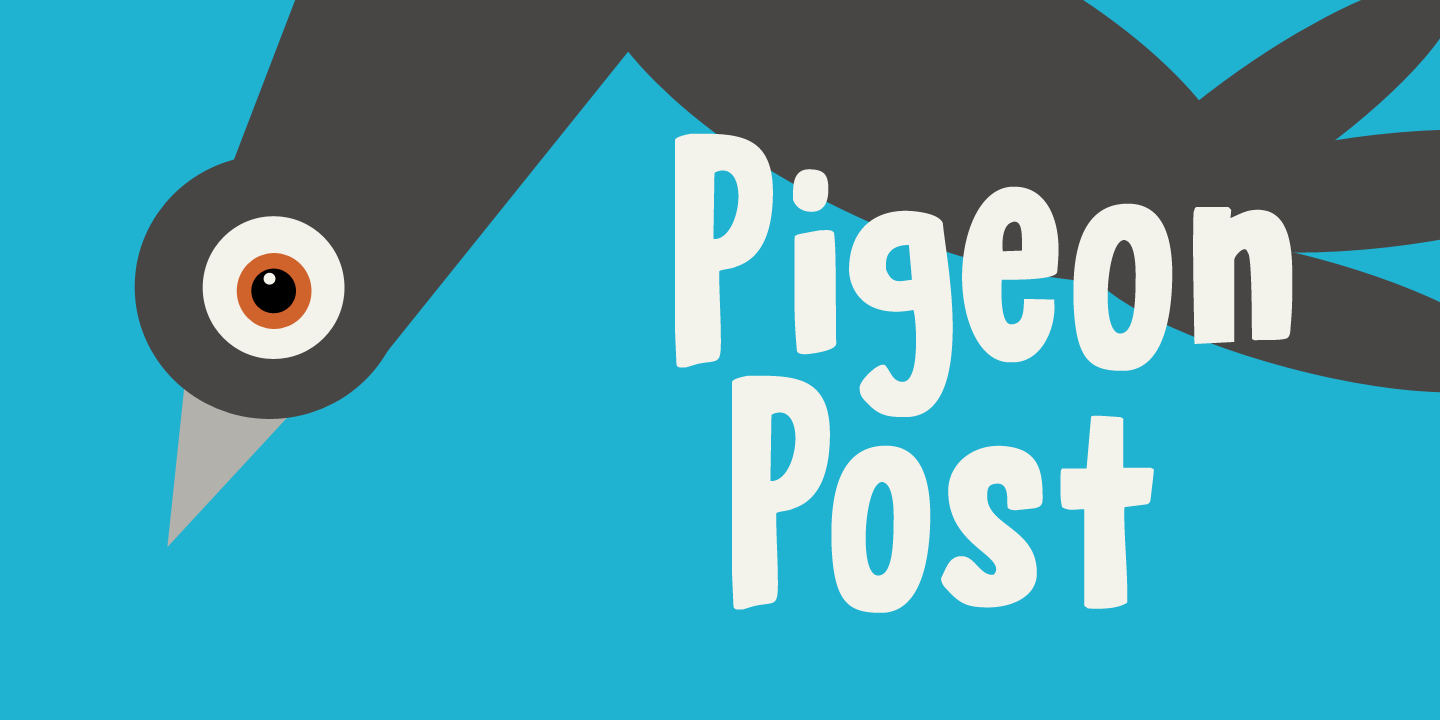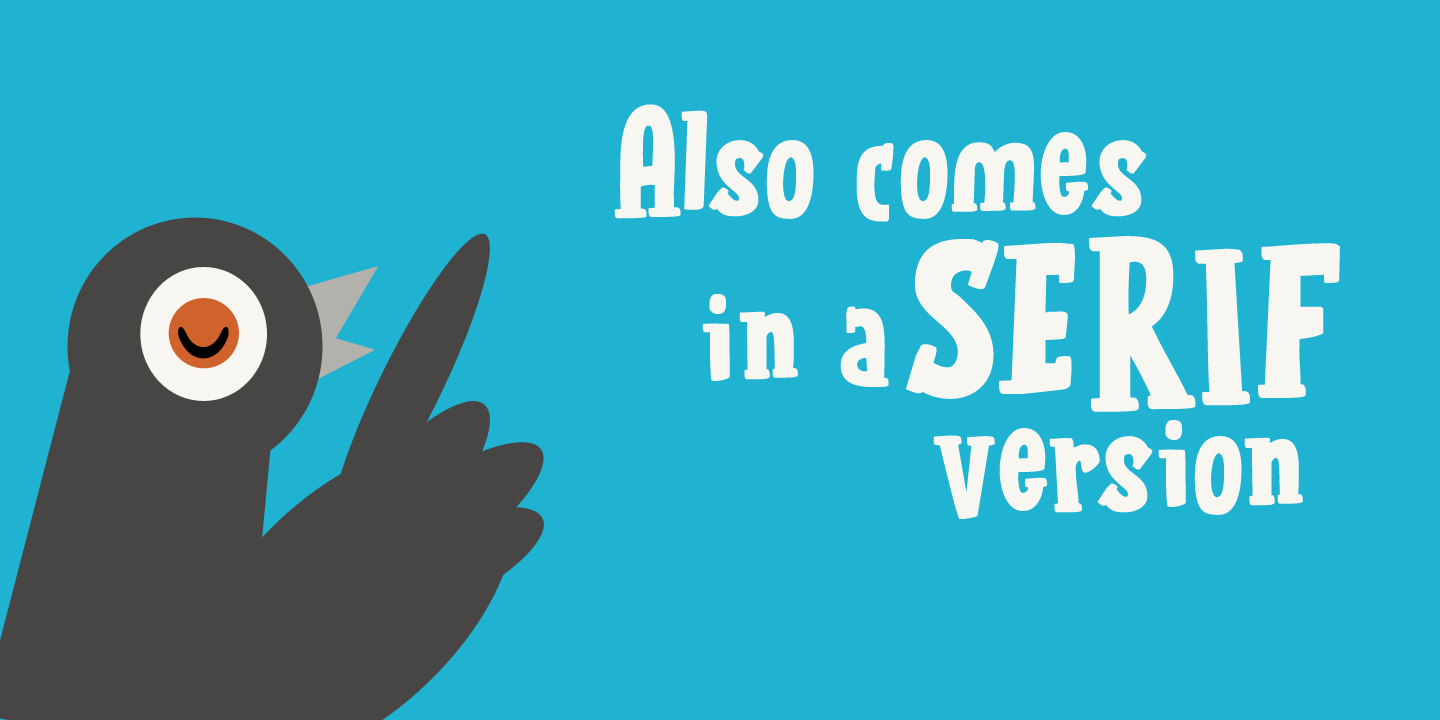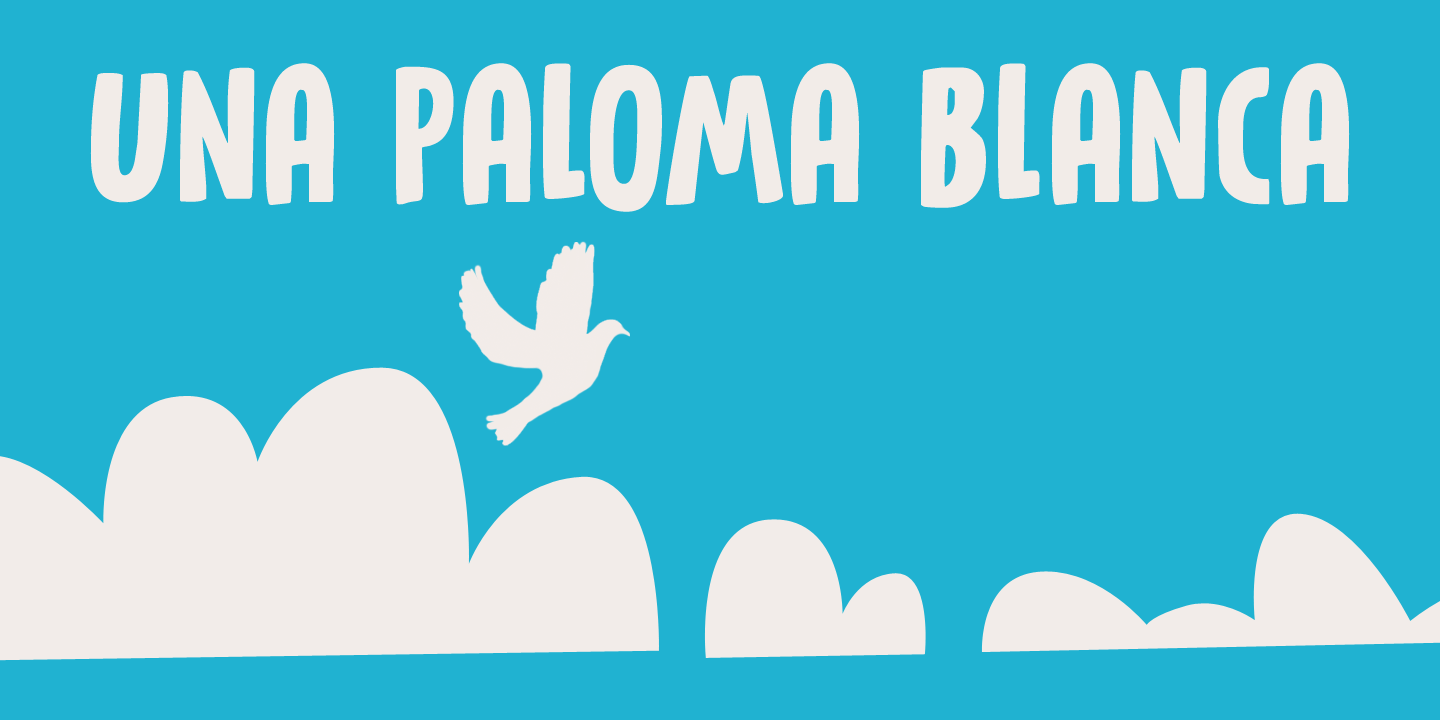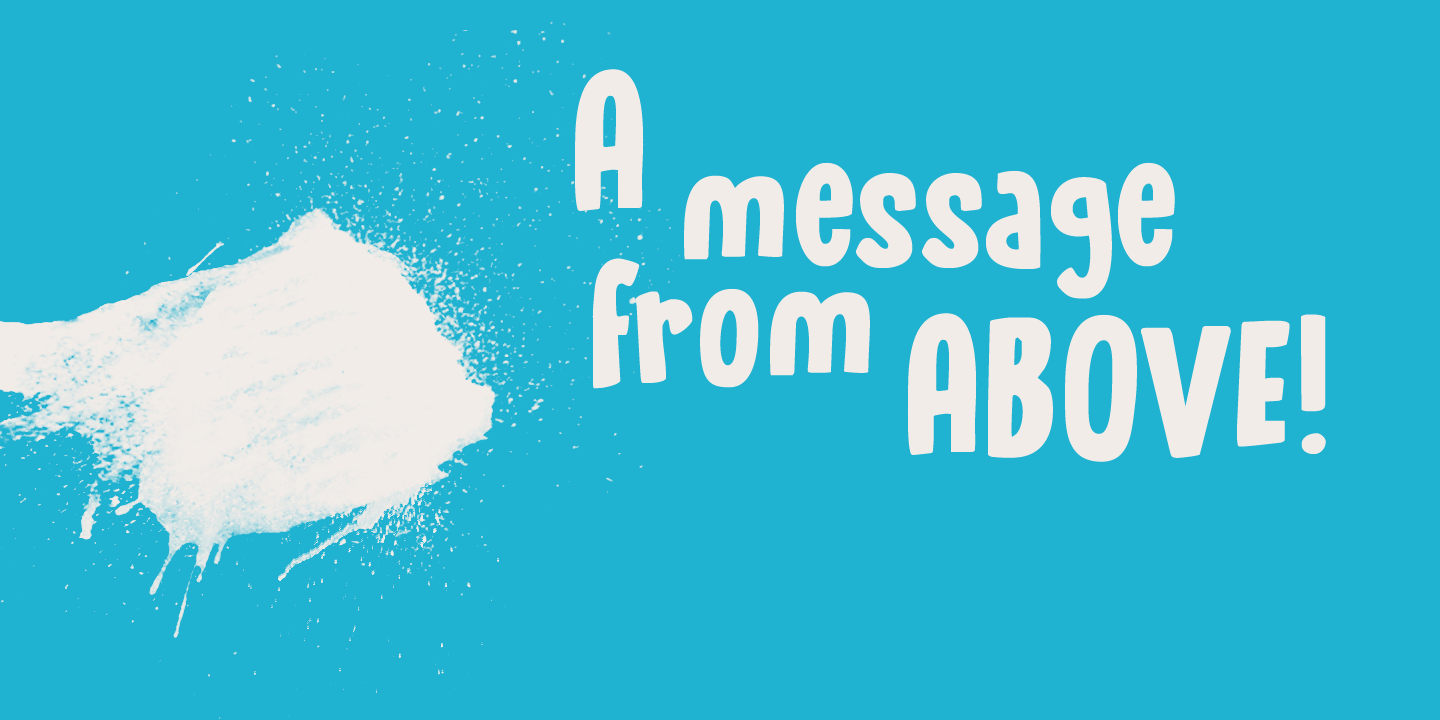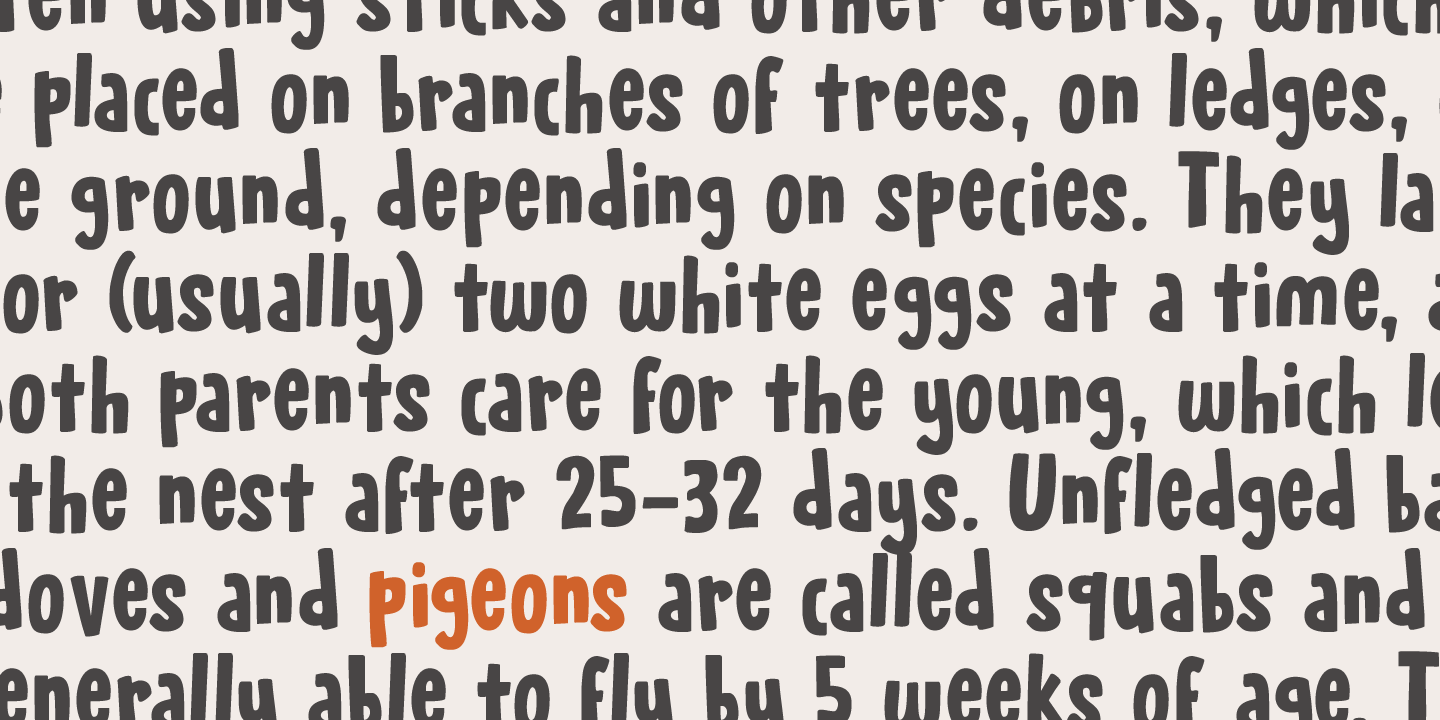
Pigeon Post
Buy NowI have no particular love for pigeons, but I read an interesting article about war pigeons being used to send messages to an fro. One pigeon (called William of Orange) even saved more than 2000 soldiers during the Battle of Arnhem.
Pigeon Post is a lovely cartoon and kids font. It comes in a sans and a serif style, so there's really no excuse for not using it!